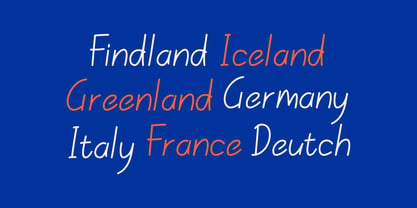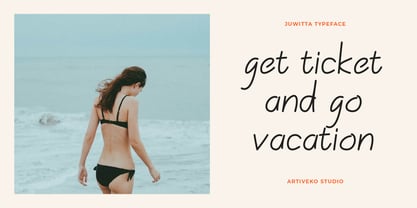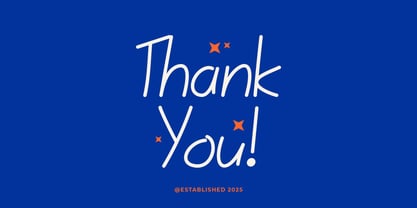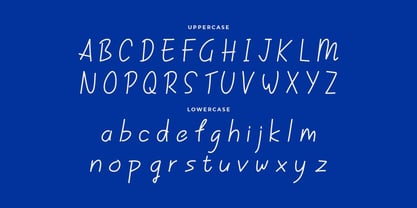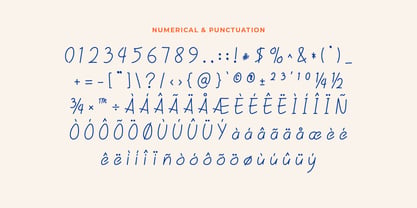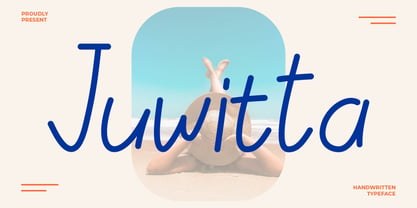
Juwitta
The Juwitta Font Family was designed by Iwan Alwan and published by Artiveko. Juwitta contains 2 styles and family package options. More about this family
Juwitta is a graceful handwritten font that combines gentle curves with expressive strokes, giving your designs a personal and artistic feel. With its flowing rhythm and naturally imperfect charm, Juwitta captures the beauty of authentic handwriting — perfect for feminine branding, invitations, social media quotes, product packaging, and creative lifestyle content.
Designed with care and character, Juwitta features uppercase and lowercase letters, multilingual support, and a delicate set of ligatures and stylistic alternates to add fluidity and variety to your typography. Its elegant simplicity makes it versatile enough for both casual and sophisticated applications.
Whether you're writing a heartfelt message or crafting a soft, stylish identity, Juwitta delivers warmth, creativity, and a touch of handwritten magic. Let your words feel genuine and beautifully crafted — with Juwitta, the font that speaks from the soul.